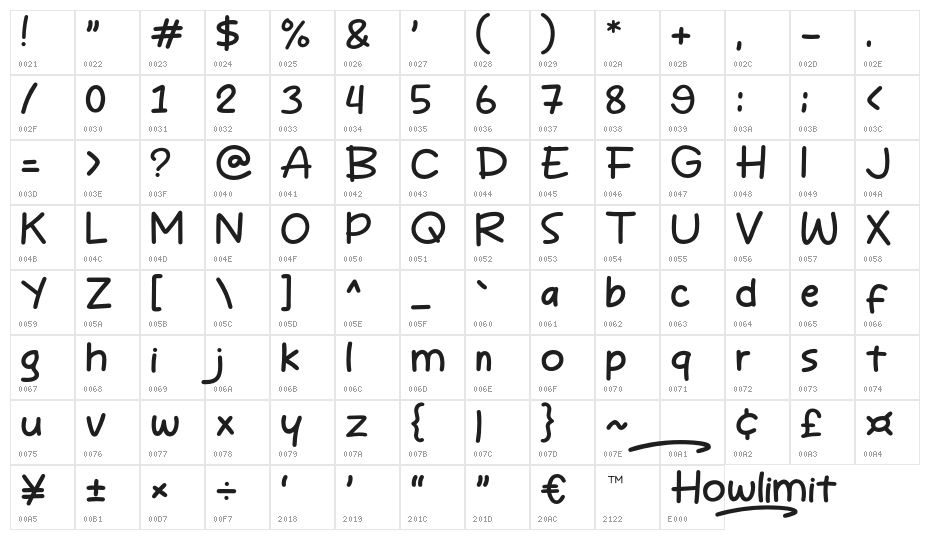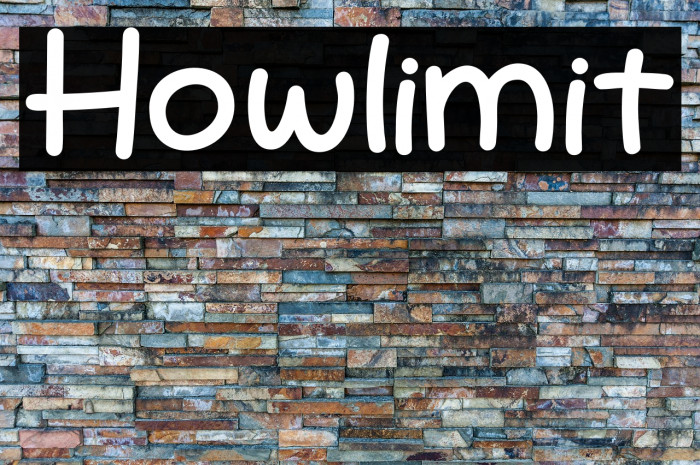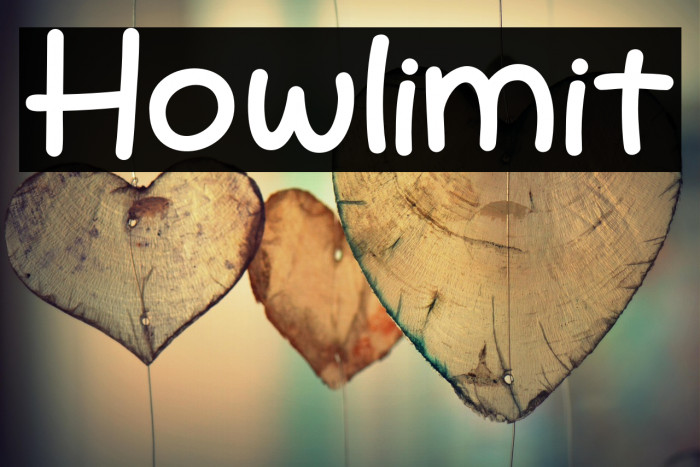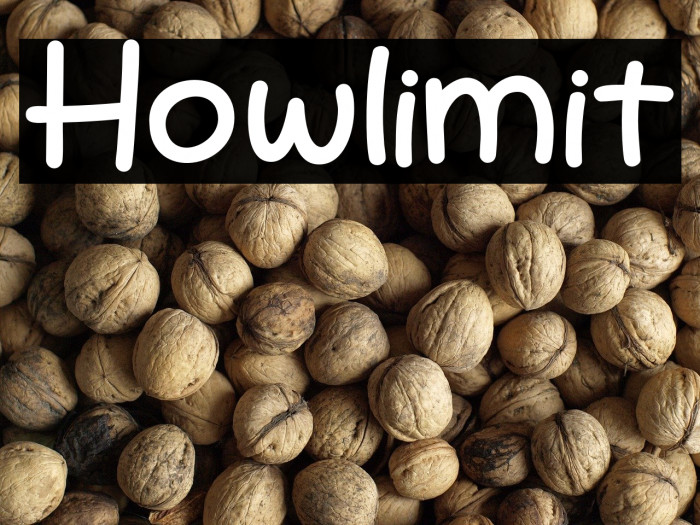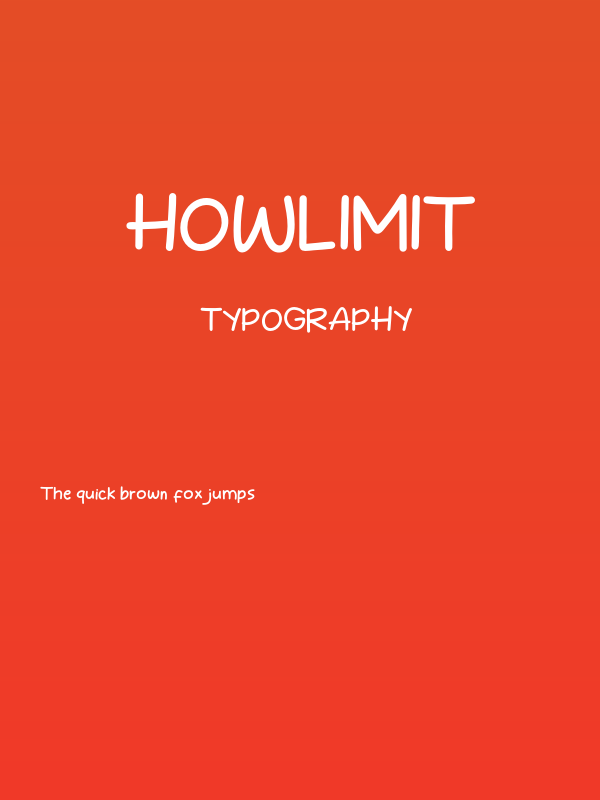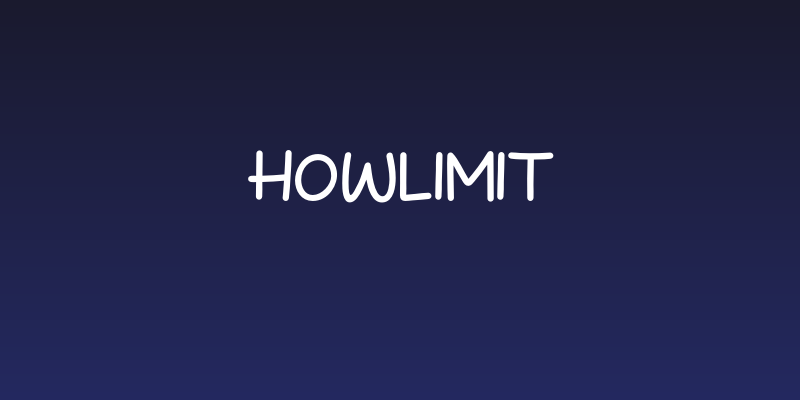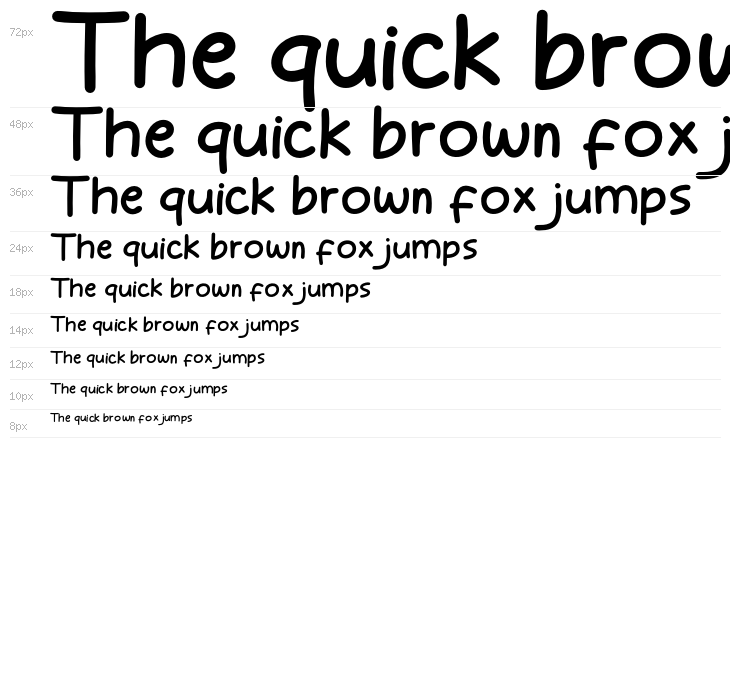
Howlimit Font
Howlimit Description
This playful and informal font features rounded, hand-drawn characters that convey a sense of friendliness and approachability. The letters have a consistent stroke width, giving them a uniform appearance, while the slightly irregular shapes add a touch of whimsy. The font includes both uppercase and lowercase letters, numerals, and a variety of special characters, making it versatile for different uses. Its casual style is reminiscent of handwriting, making it suitable for projects that require a personal touch.
| Overall Style | Casual |
| Use Case | Headlines, Informal text, Creative projects |
| Proposed Projects | Ideal for children's books, greeting cards, casual branding, and playful social media graphics. |